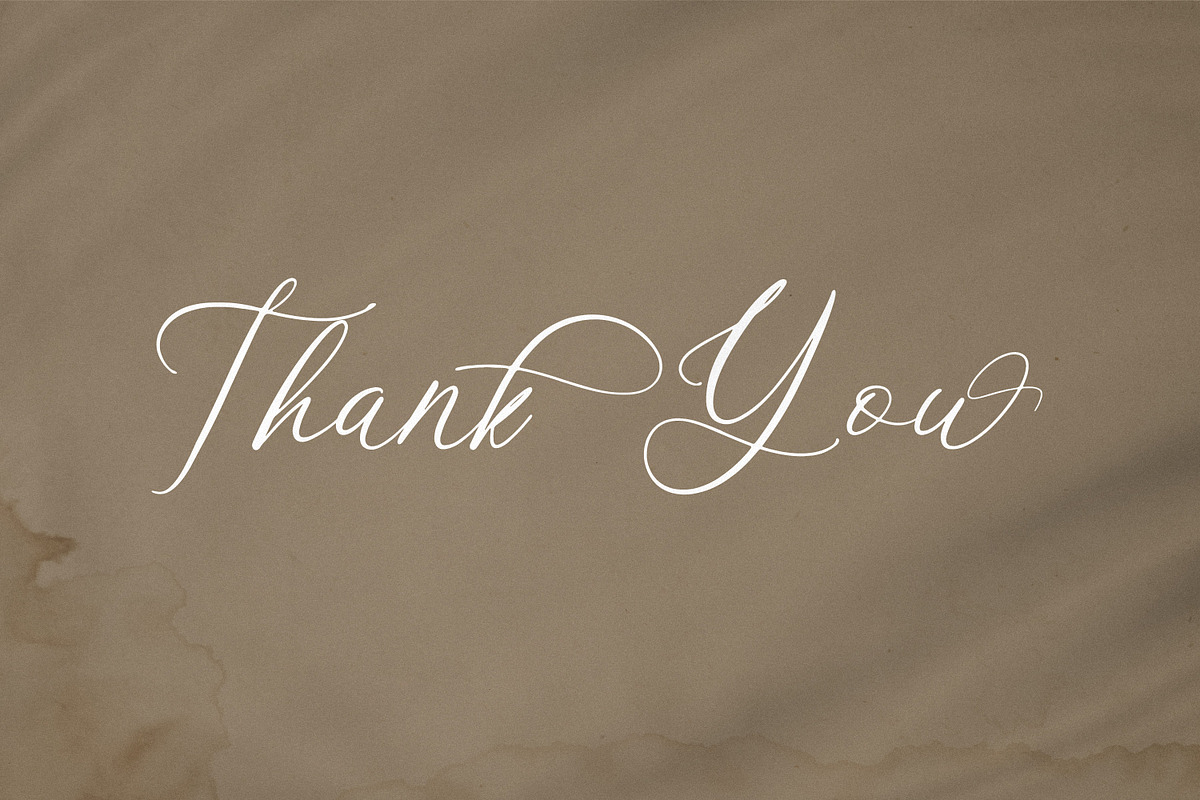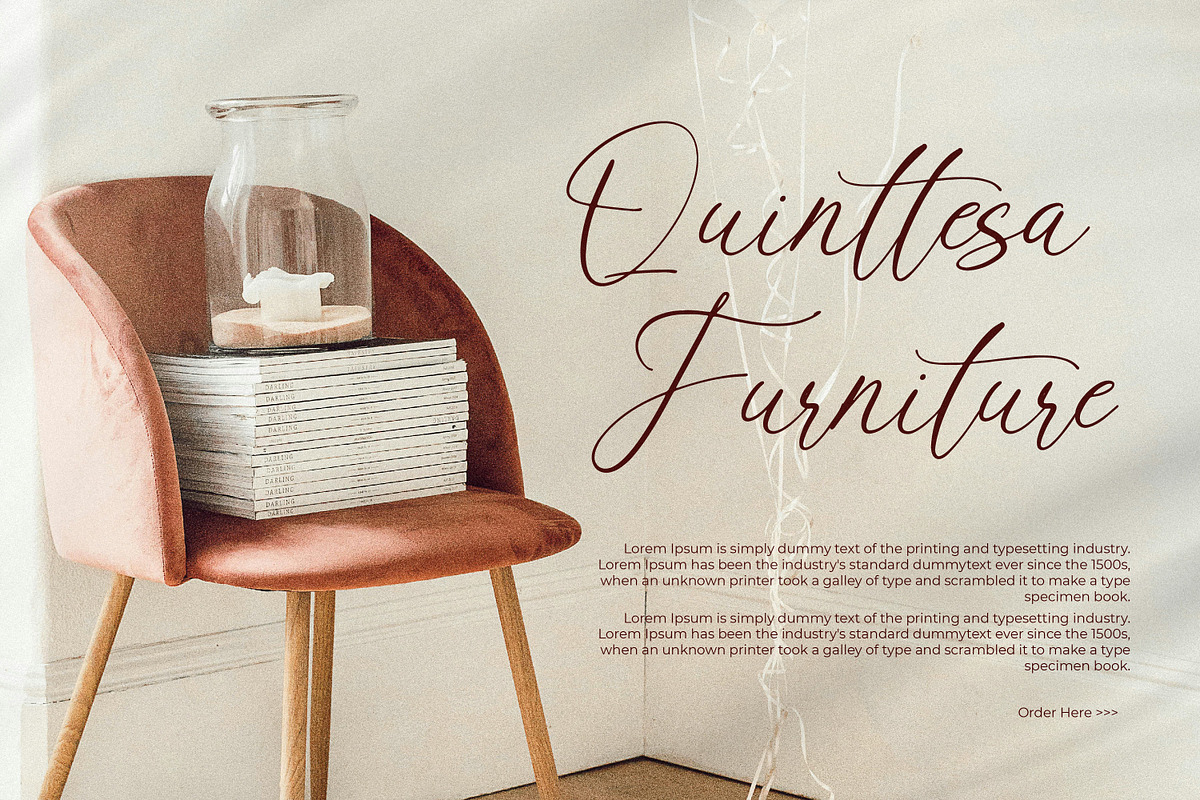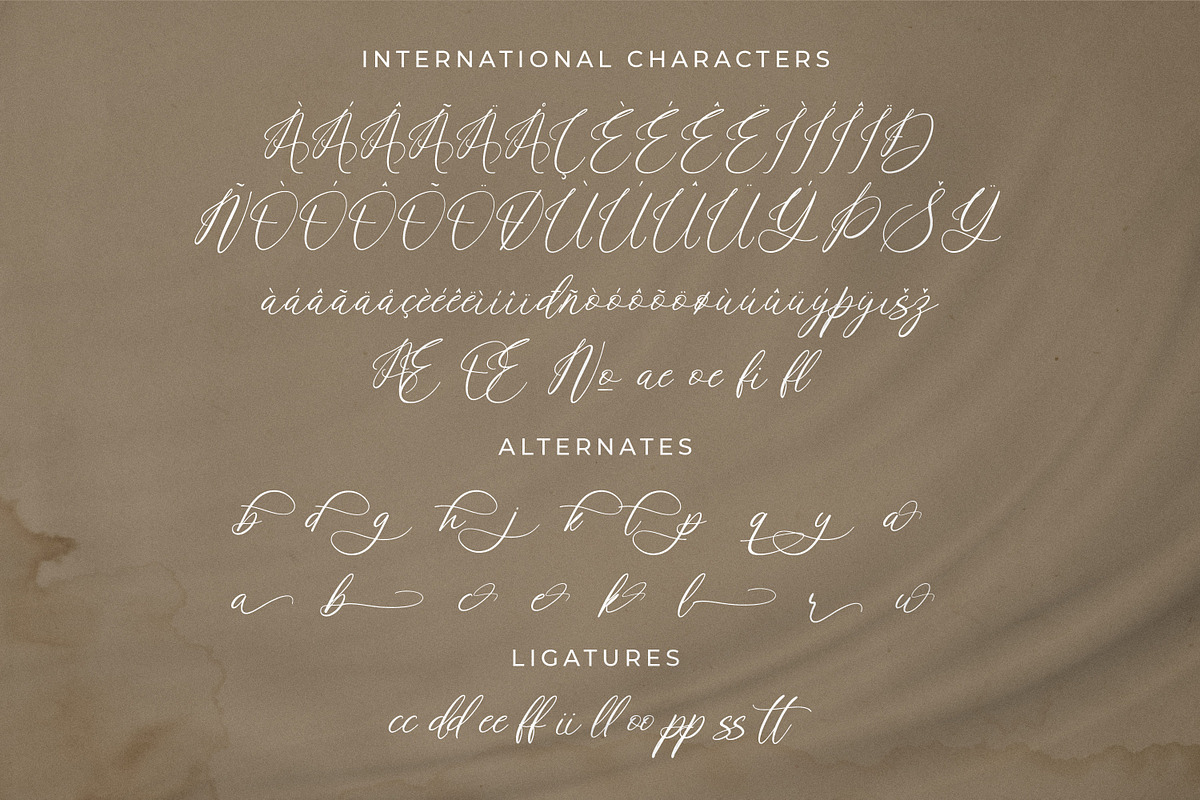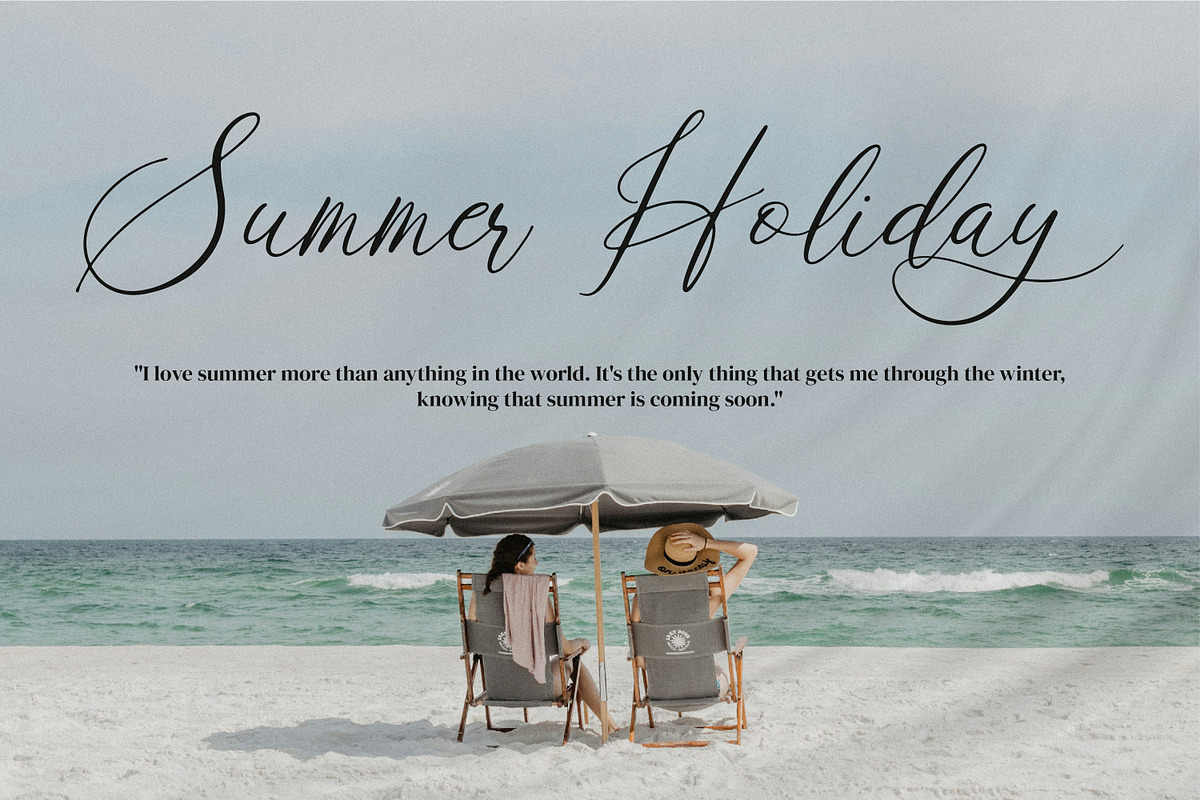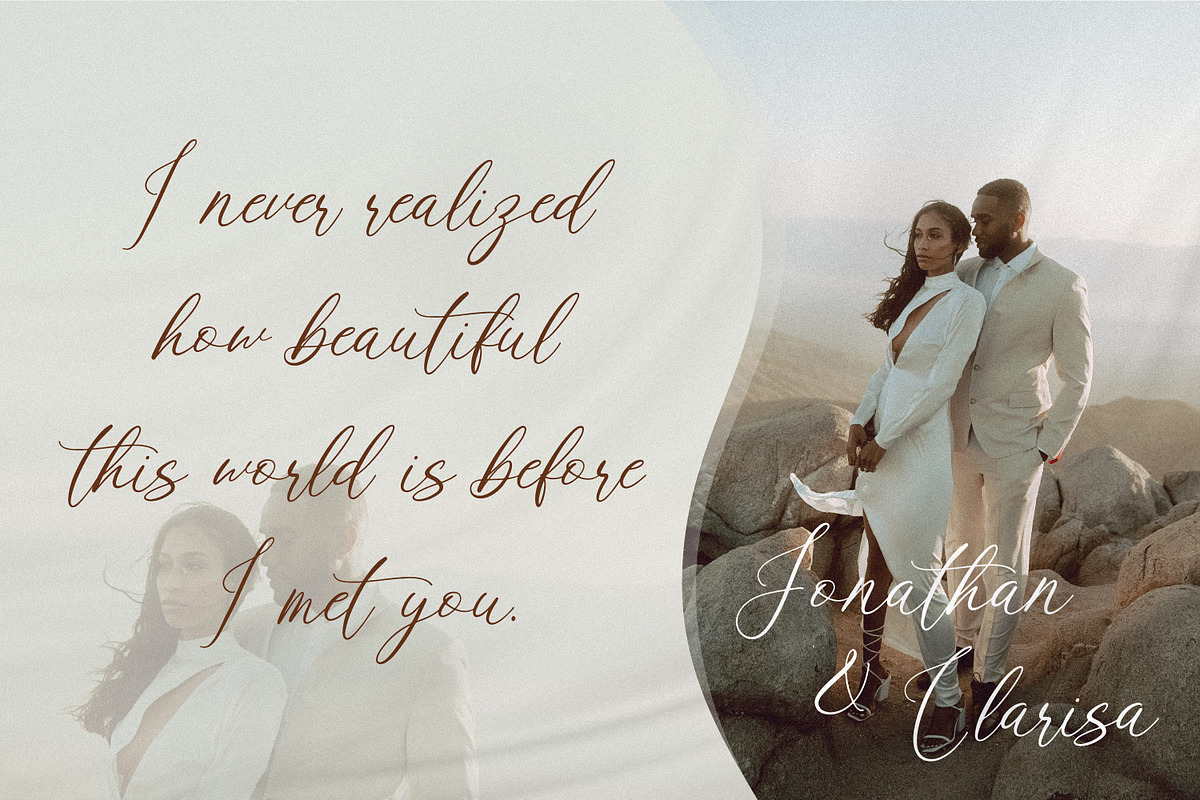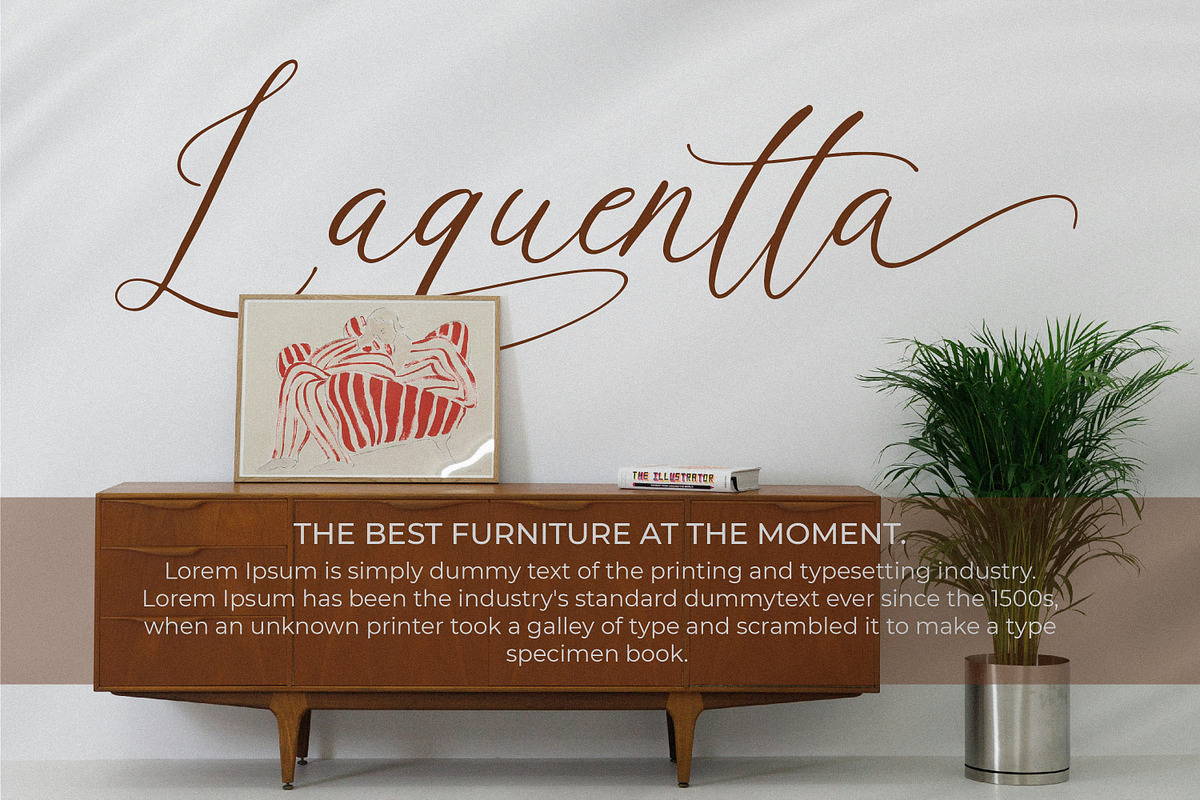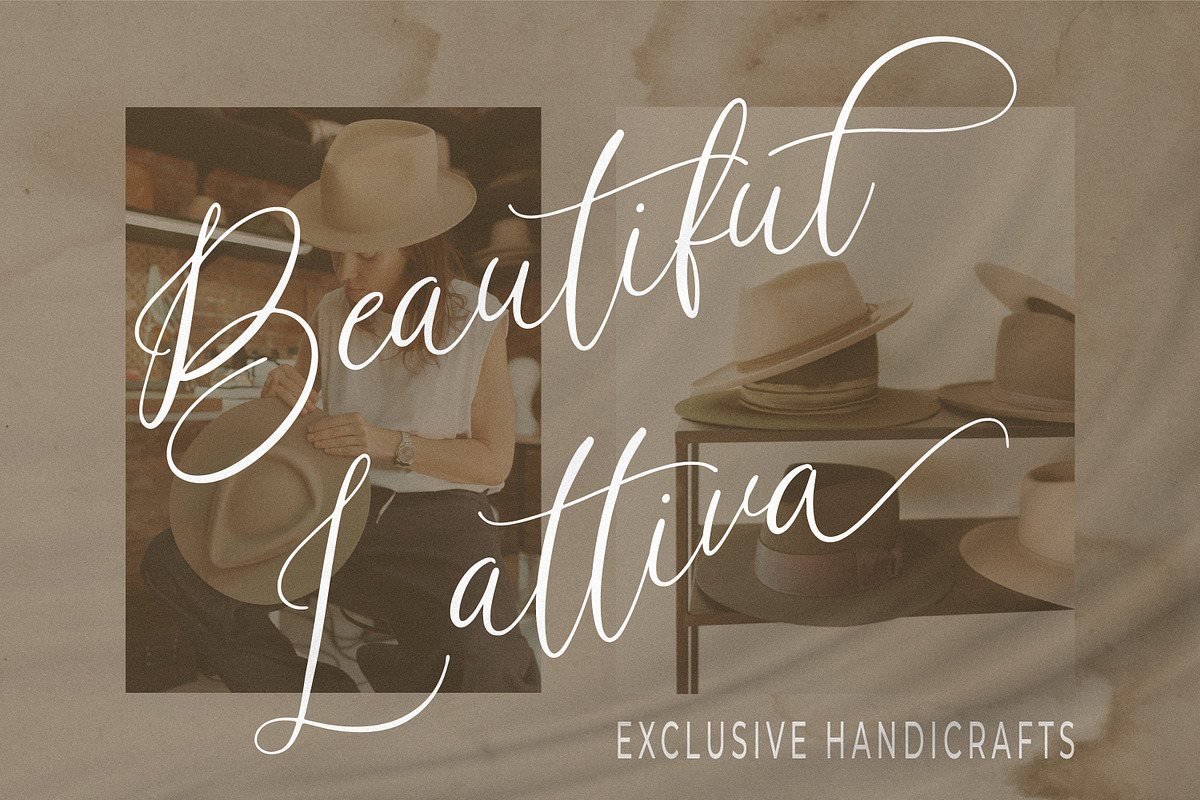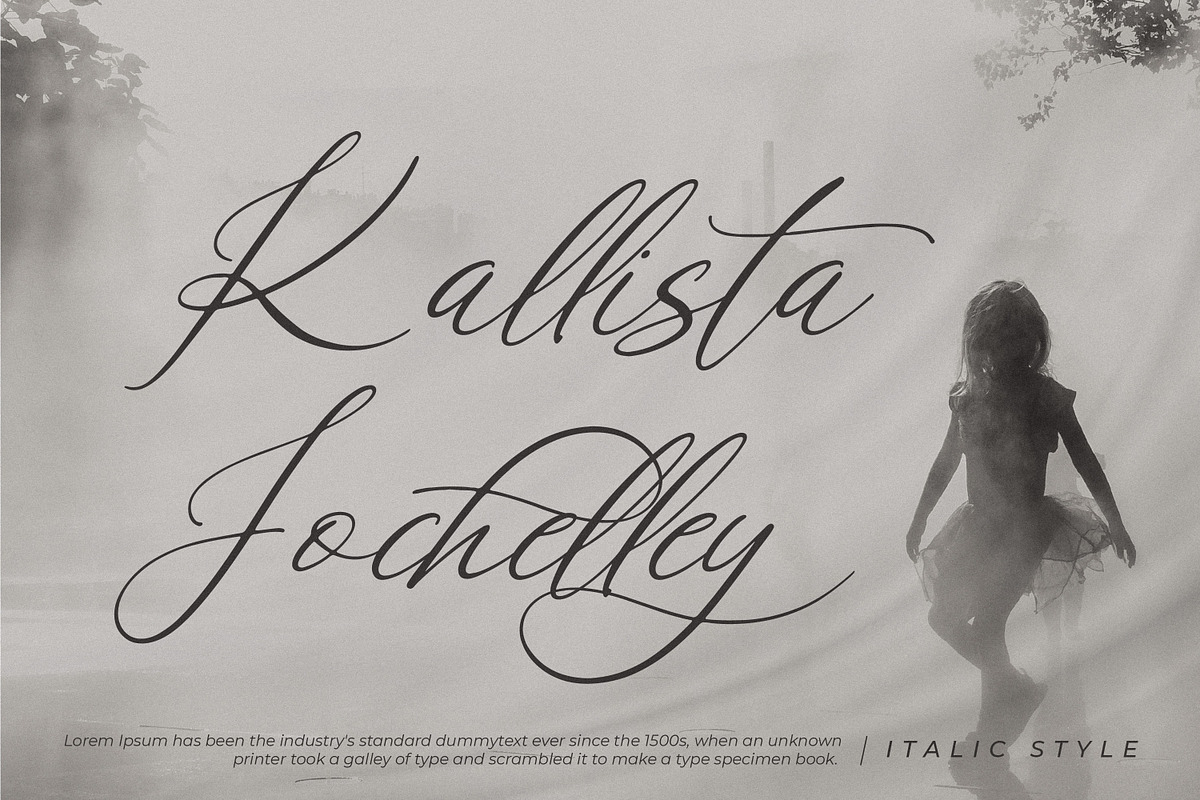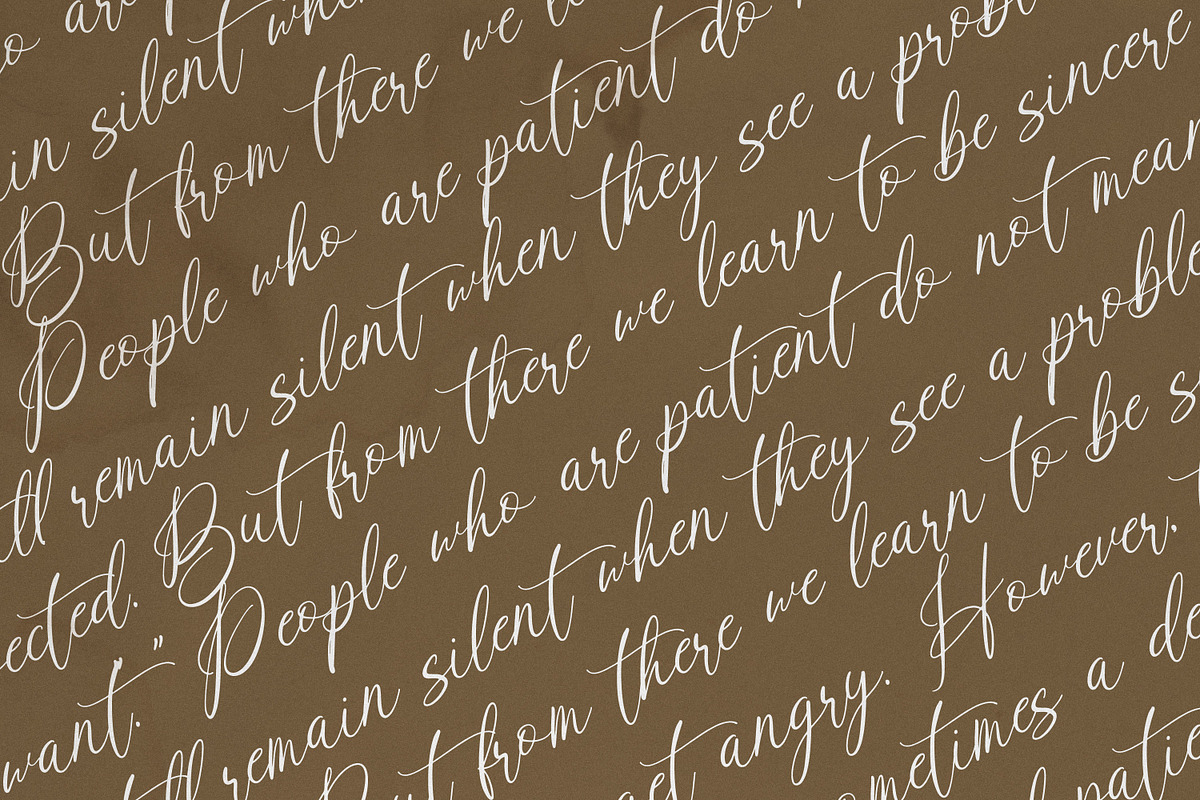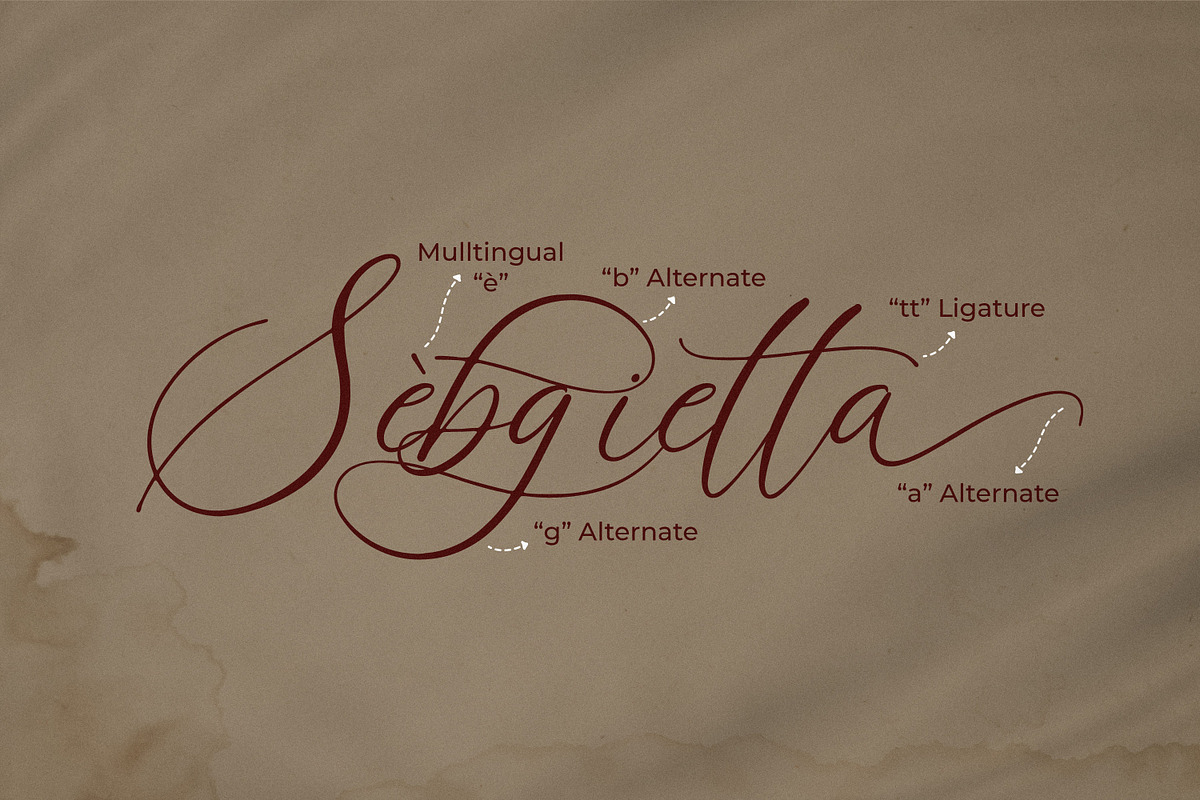
Violetta Frosteil
Violetta Frosteil - A Calligraphy Script Font, from Goresan Studio, suitable for any projects such as: logos, branding projects, homeware designs, product packaging, mugs, quotes, posters, shopping bags, t-shirts, book covers, name card, invitation cards, greeting cards, label, photography, watermark, special events, and all your other lovely projects that need a beautiful script taste.
- Alternate, Ligature and Swash
- Fonts include multilingual support.